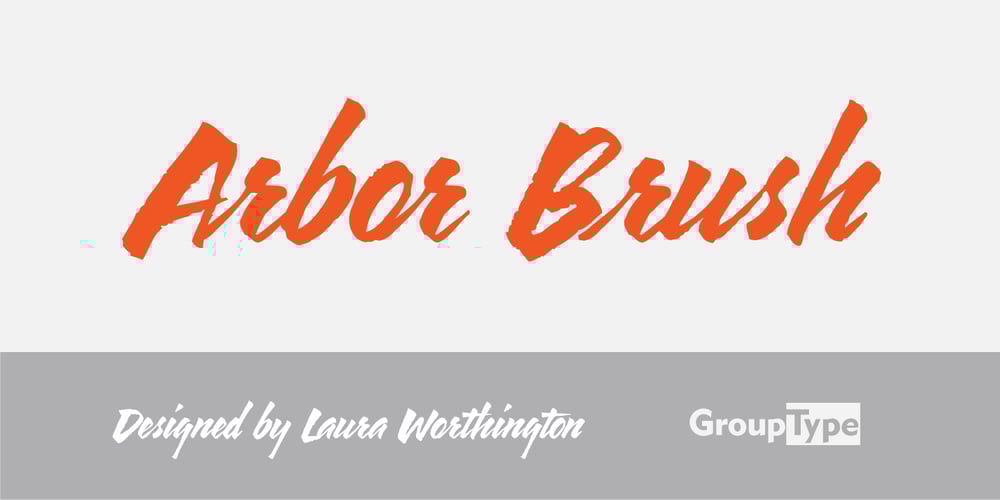
Arbor Brush Font Family was designed by Laura Worthington and published by GroupType. Arbor Brush contains 1 styles and family package options. Arbor Brush is a fresh and lively brush script from the FontHaus design studio. The design is organic, strong, painterly, and anything but tentative. Great for advertising, menus, signage, or display.